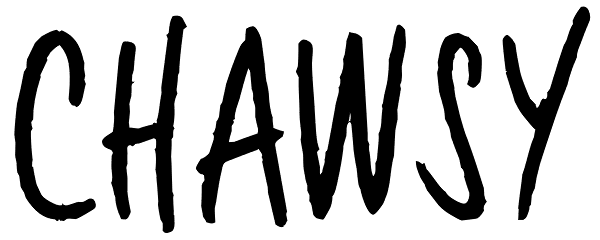
Chawsy
An all caps font with smooth and somewhat grungy letters. Perfect for imitating hasty written letters or such alike! Comes with 2 alternatives for each letter, and with kerning for both lower/lower, caps/caps and lower/caps.